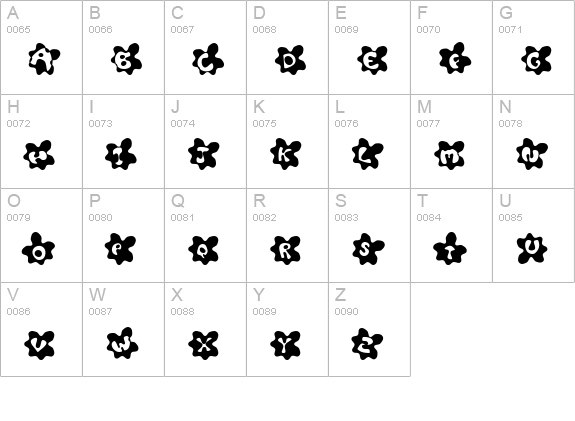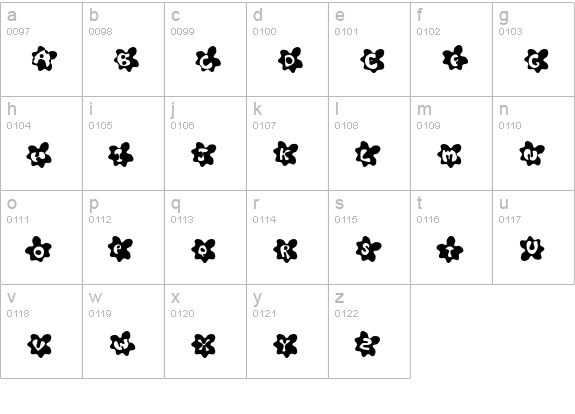
Fried Eggs Smallcaps Font Details
Introducing Fried Eggs Smallcaps font - a delightful and quirky typeface perfect for adding a touch of playfulness to your designs. With its unique small caps style, Fried Eggs exudes a fun and energetic vibe that is sure to catch the eye. The rounded edges and smooth curves give this font a friendly and approachable feel, making it ideal for a variety of projects such as branding, packaging, invitations, and more. What's even better is that Fried Eggs Smallcaps font is available for free download at FontsMarket.com! That's right, you can get your hands on this charming font without spending a dime. So why wait? Add a sunny side up twist to your designs with Fried Eggs Smallcaps font today!